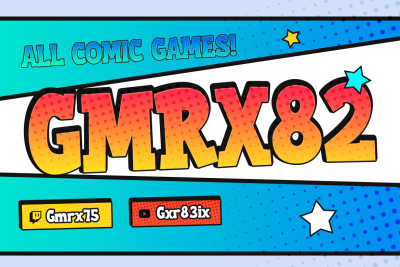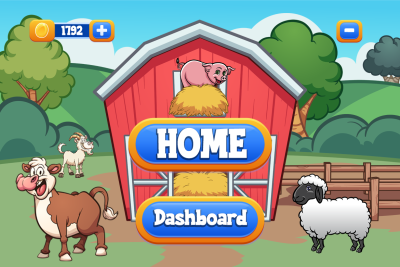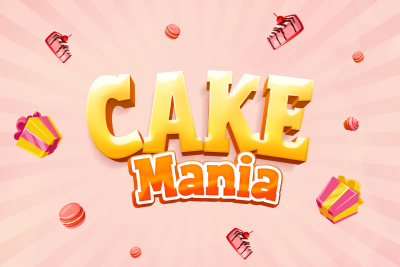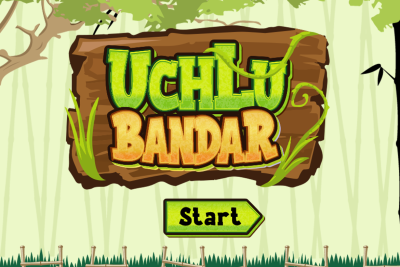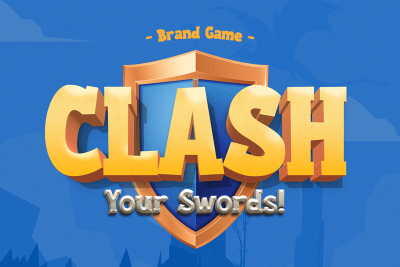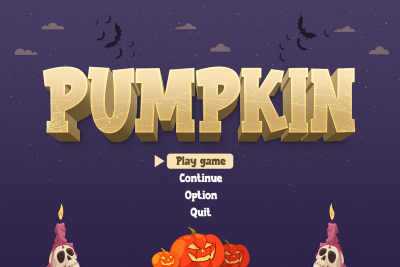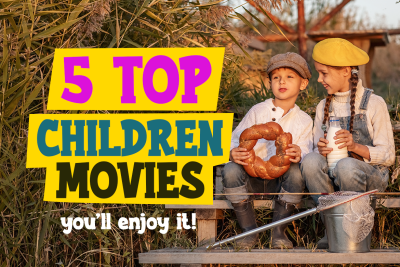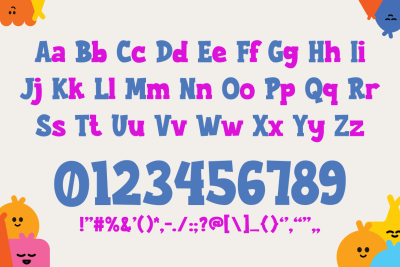
The Gaming Font Laughter is a lively and colorful typeface designed to infuse energy and fun into your creative projects. With its bold and playful letterforms, this font is perfect for crafting game titles, childrenโs books, and cheerful branding. Its multi-colored design and engaging style make it an excellent choice for content targeting younger audiences or anyone seeking a joyful and lighthearted vibe.
Designed for versatility, Laughter excels in both print and digital media. Itโs ideal for banners, posters, logos, and social media graphics. With its unique combination of readability and flair, this font adds a cheerful personality to any design, ensuring it stands out in a crowded visual space.
Why This Font is a Must-Have
The Gaming Font Laughter offers more than just aesthetic appeal. Its design ensures that your message is easy to read while maintaining a distinct character. Whether you’re creating event flyers, educational materials, or fun merchandise, Laughter adapts seamlessly to various applications.
This font also evokes happiness and nostalgia, making it a favorite for projects that require a personal touch. The colorful and dynamic elements inspire creativity, ensuring your designs are both engaging and memorable. Furthermore, its compatibility with a wide range of themes allows designers to experiment and produce unique results.
Perfect Applications for Gaming Font Laughter
Gaming Font Laughter thrives in projects that aim to spread joy. Itโs particularly suitable for creating educational games, event invitations, and celebratory posters. Additionally, its vibrant style makes it ideal for holiday campaigns, product packaging, and interactive websites targeting children and families.
Laughter also shines in digital environments such as e-learning platforms and mobile games. Its friendly and approachable design ensures that your audience connects with your message, making your projects impactful and visually appealing. Whether youโre designing for fun, learning, or celebration, this font will undoubtedly bring a smile to your audienceโs faces.